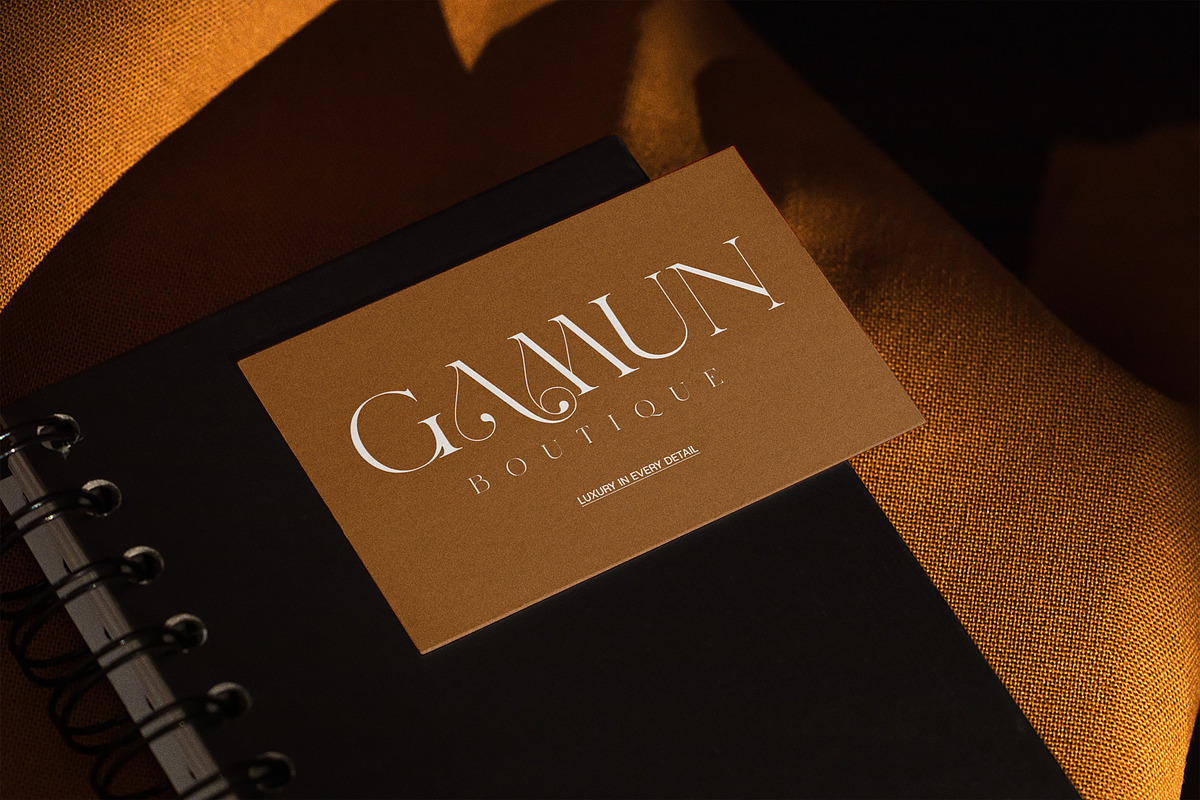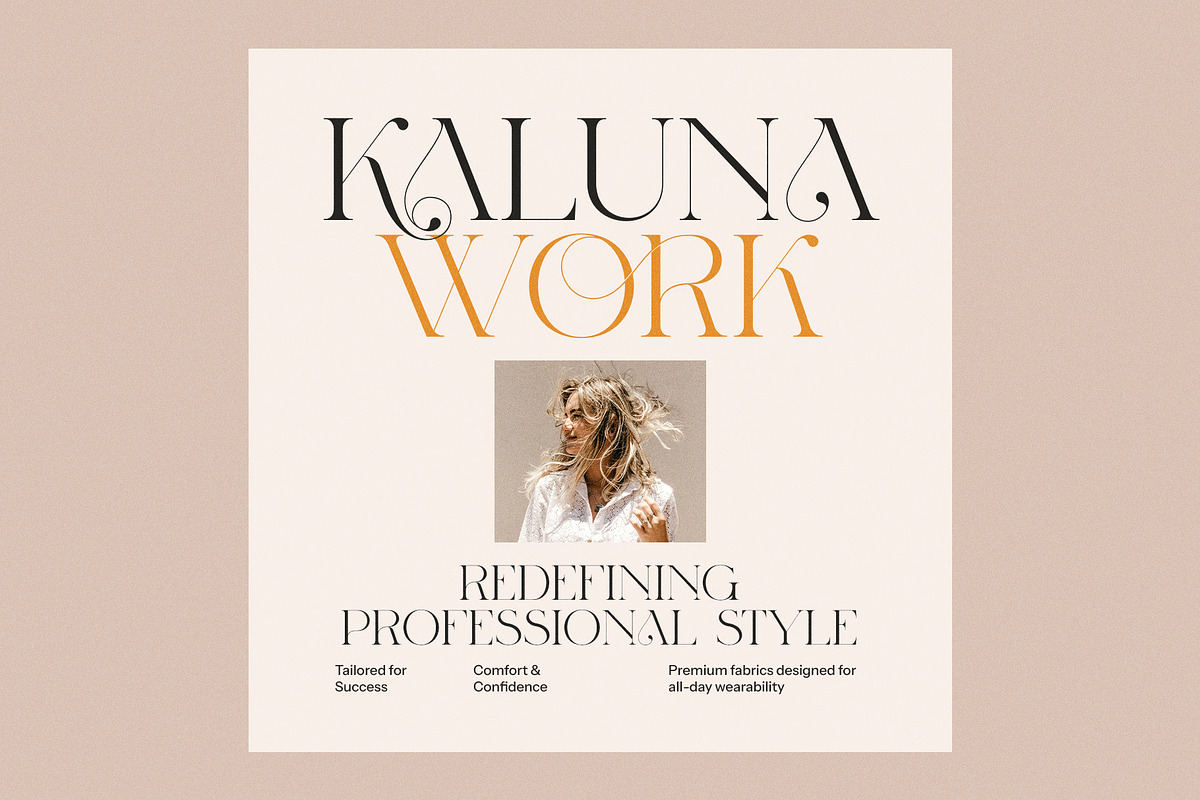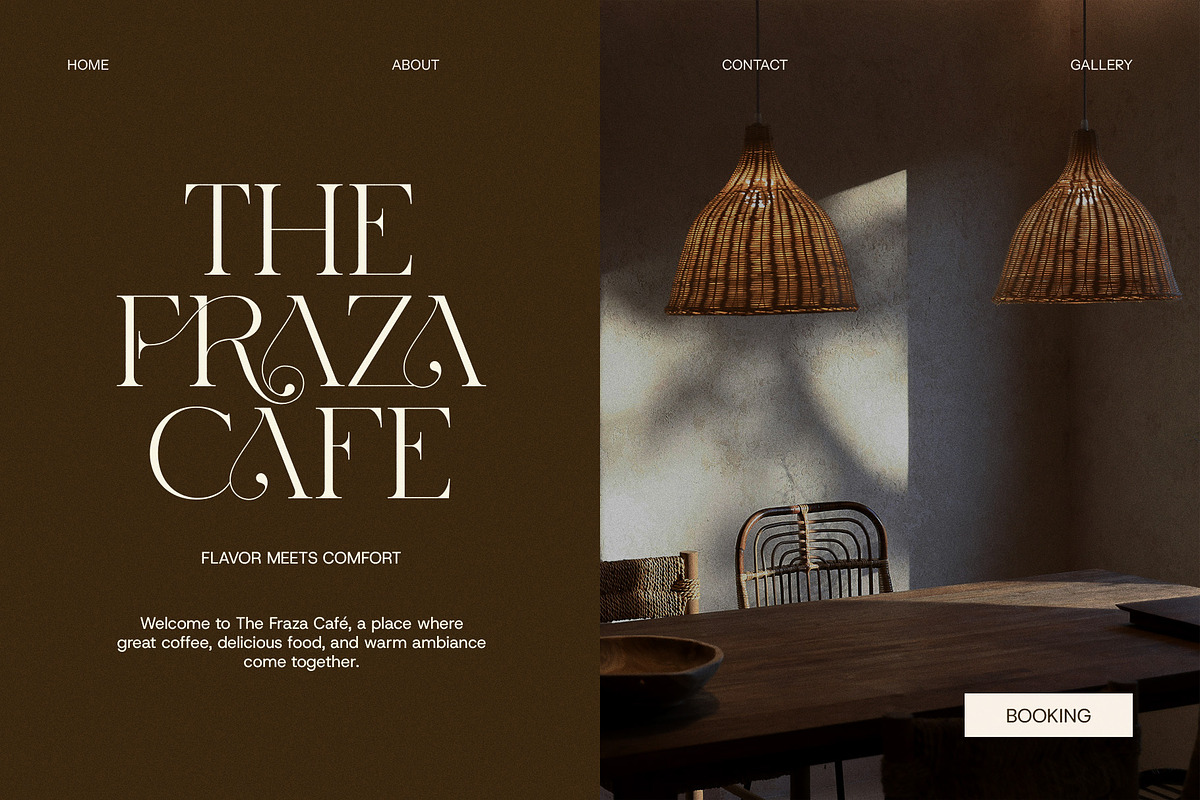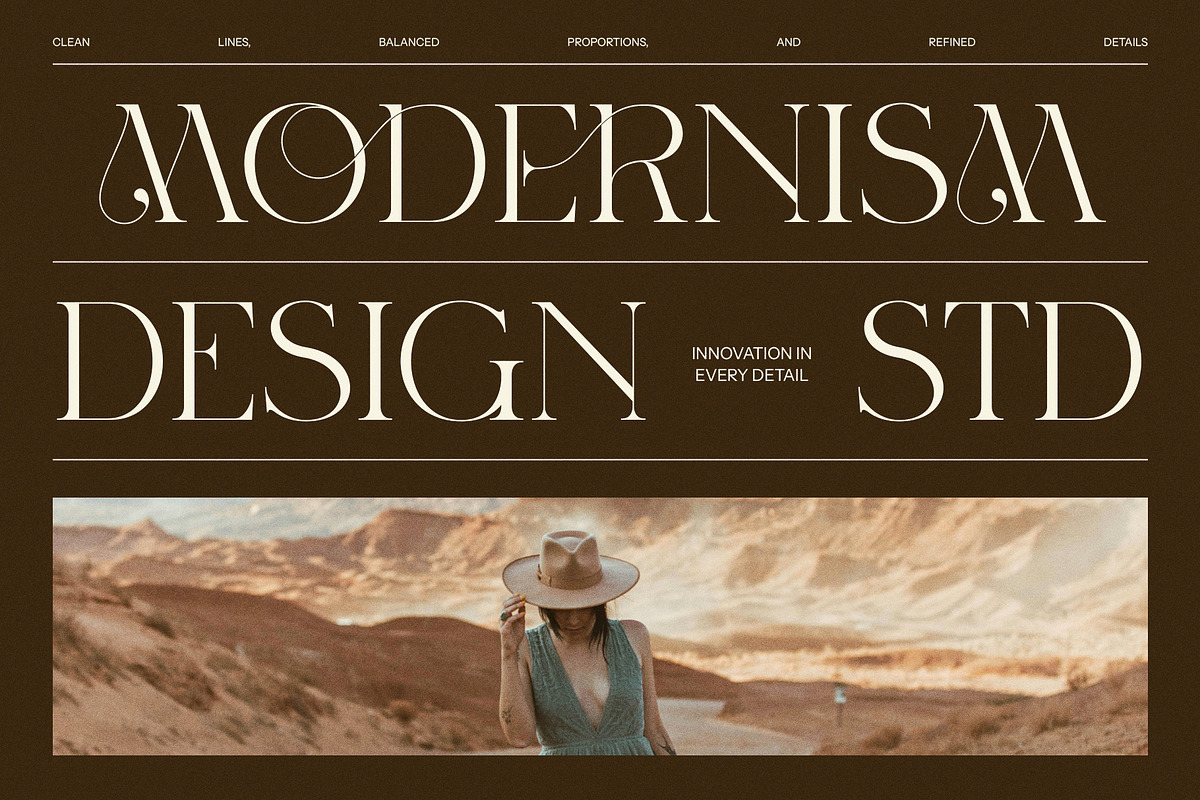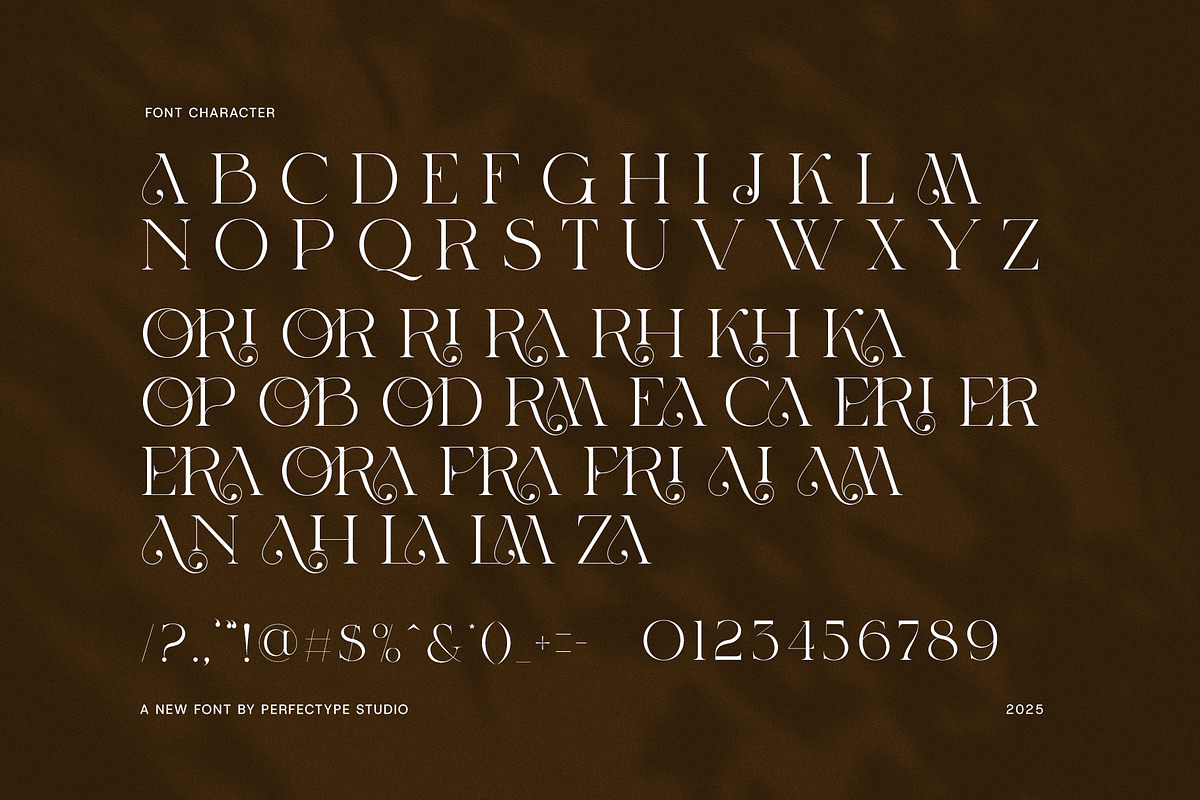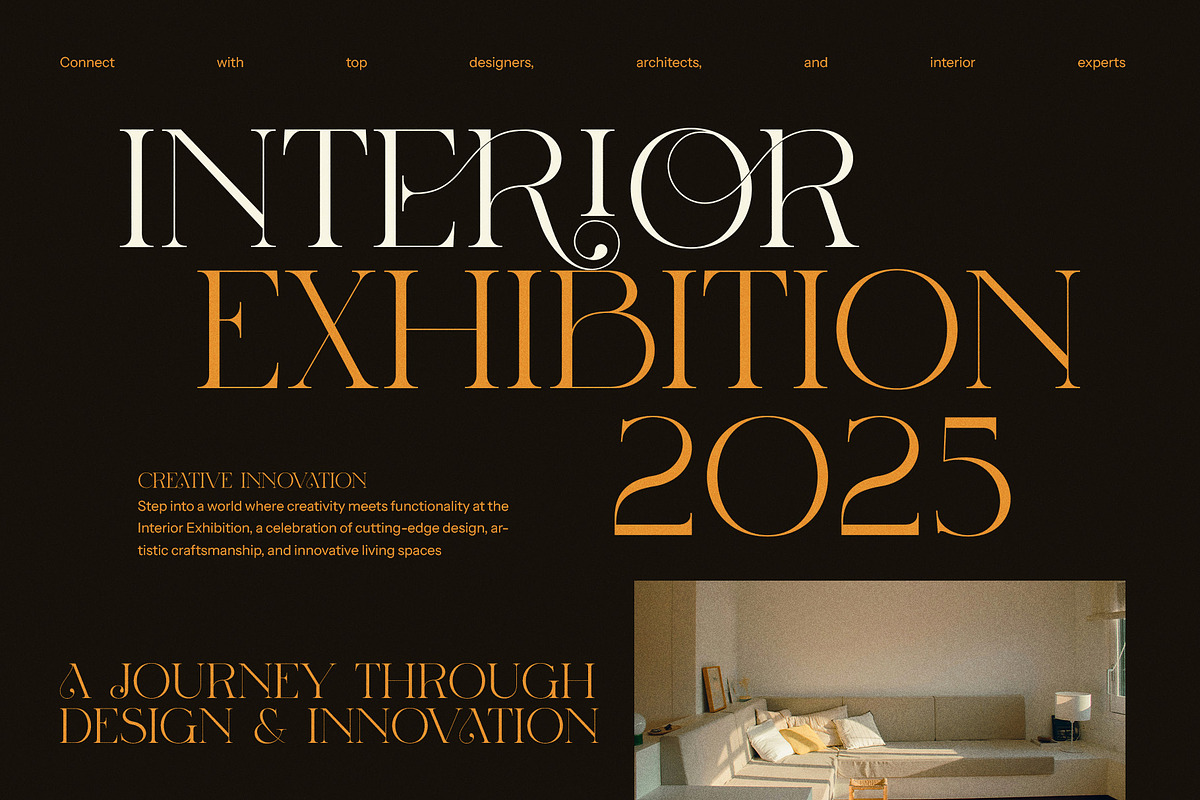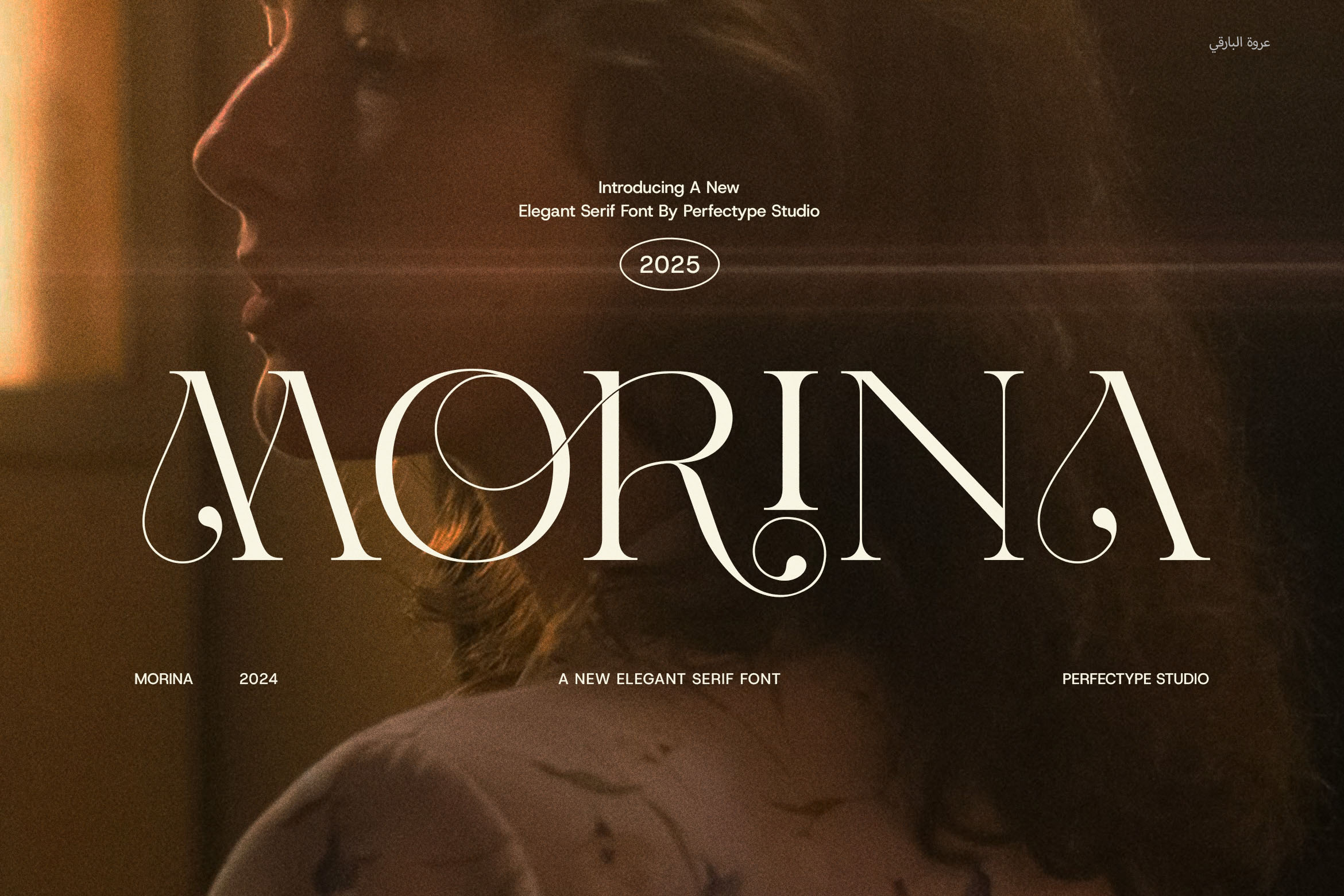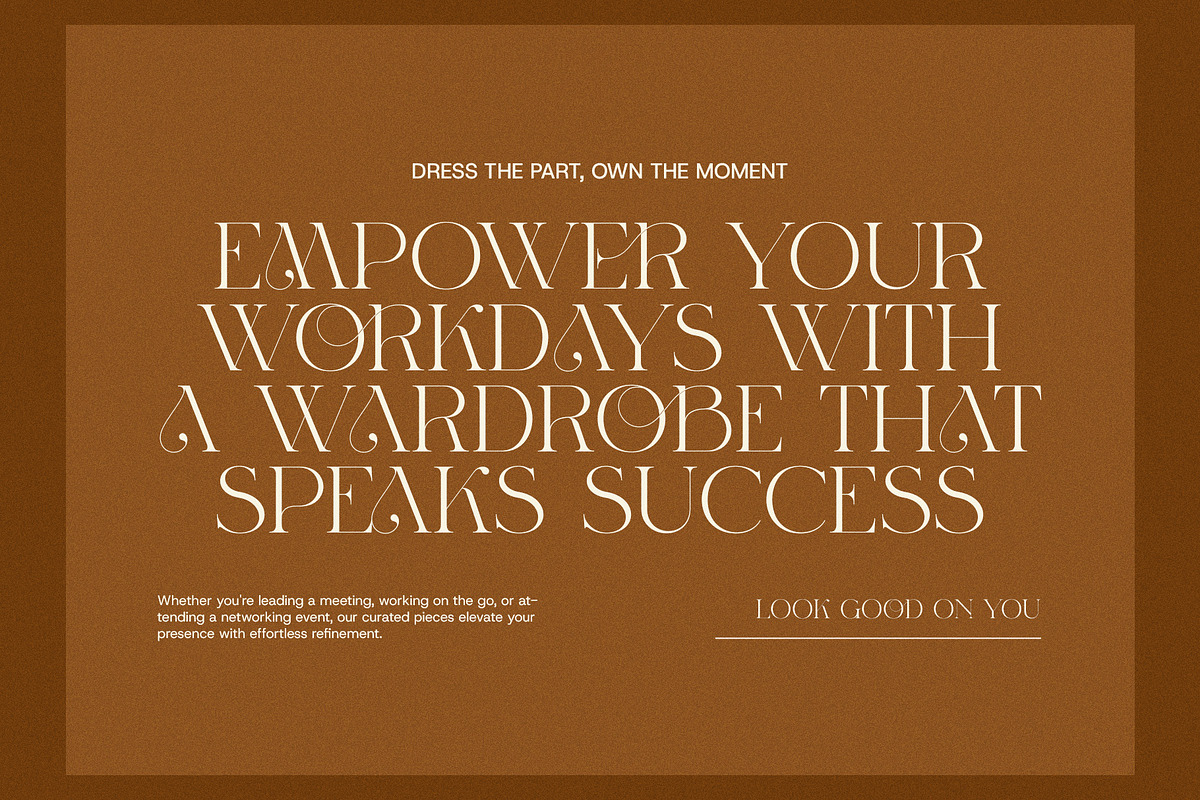
Morina Elegant Serif Font
Morina – Where Elegance Meets Modern Simplicity
Step into a world of timeless beauty with Morina, a sophisticated serif font that fuses classic form with a modern, fashion-forward aesthetic. Designed for those who appreciate subtle detail and polished typography, Morina offers a clean yet luxurious feel — ideal for projects that demand both refinement and originality.
Characterized by its graceful curves, high-contrast strokes, and unique ligatures and alternates, Morina adds an elevated touch to any visual composition. This typeface was crafted with creative professionals in mind, bringing versatility and charm to every design. Whether you're building a luxury brand identity, designing a boutique logo, or crafting elegant editorial layouts, Morina delivers timeless appeal with modern flair.
Morina shines in high-end applications — from beauty packaging and wedding stationery to fashion catalogs, product labels, and website headlines. Its delicate serif structure and refined detailing create a harmonious balance between readability and visual elegance, making it perfect for magazines, advertisements, restaurant menus, and brand storytelling.
What sets Morina apart is its thoughtfully designed stylistic alternates and ligatures, which give you complete creative control over your typographic expression. Use these features to design stunning logotypes, standout quotes, or artistic headlines with effortless sophistication.
Whether you're working on a modern minimalist layout or a rich, ornate design, Morina brings just the right amount of contrast and personality to the table. It captures the essence of modern elegance and timeless typography, making it a must-have in any designer’s font collection.
For brands that want to speak in a voice that’s stylish, confident, and refined, Morina Elegant Serif Font is the perfect choice. Embrace the balance of tradition and trend, and let your designs tell a story of quiet luxury and intentional beauty.